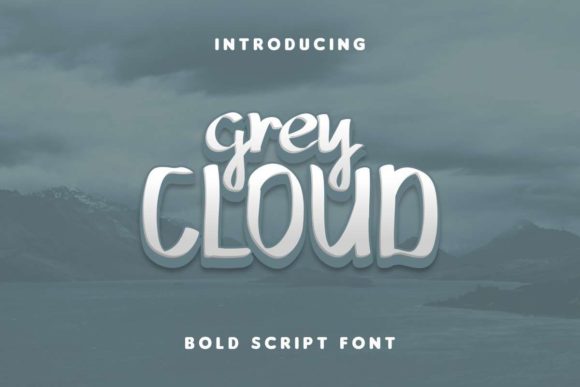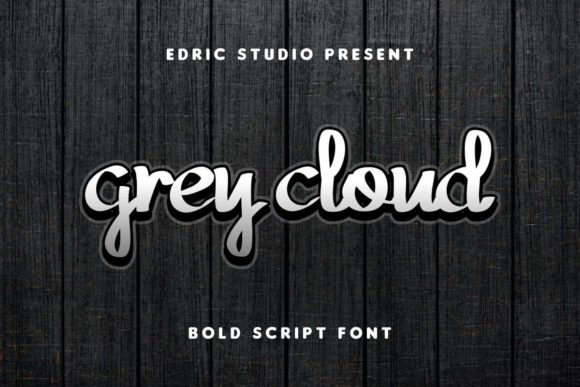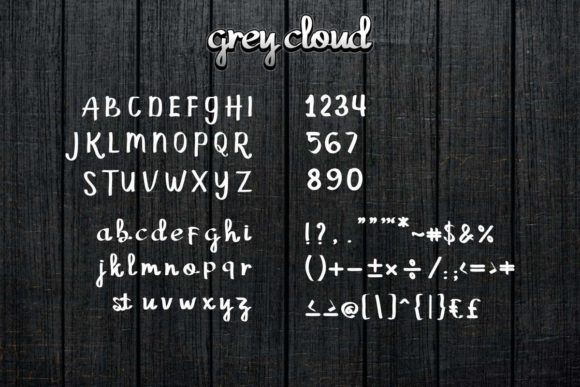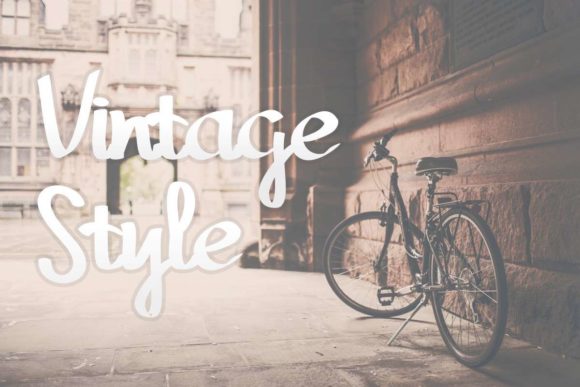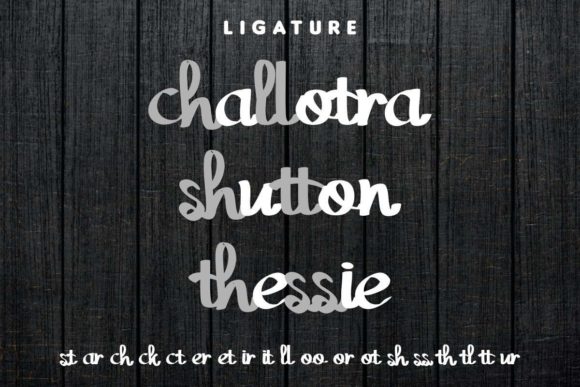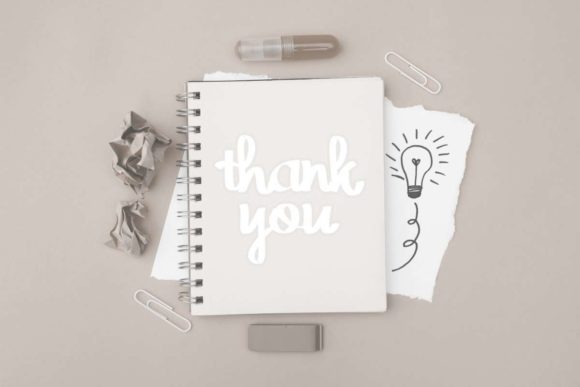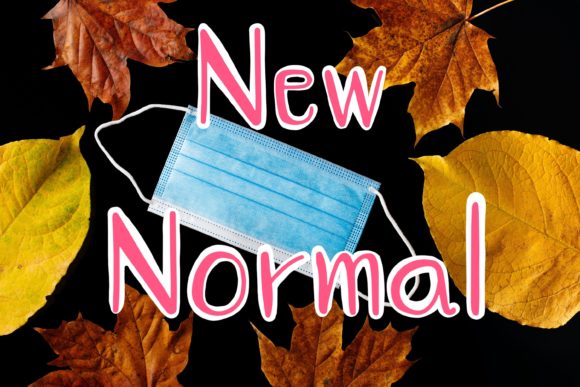
Grey Cloud Font
About Grey Cloud Font
Grey Cloud is a cute, friendly and thick lettered handwritten font, created with the help of a brush pen. Its natural and unique style makes it incredibly fitting to a large pool of designs. The only limit is your imagination!